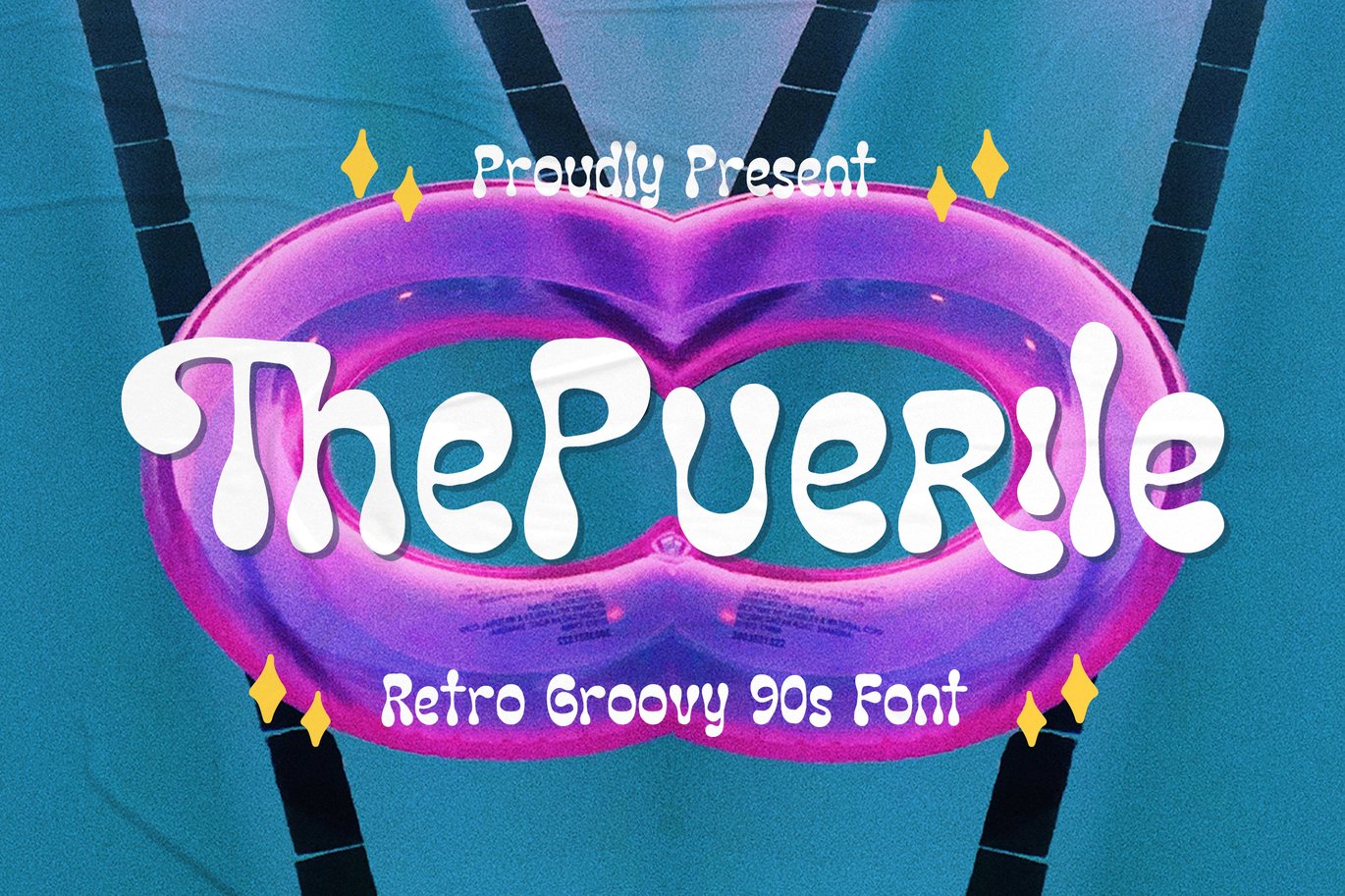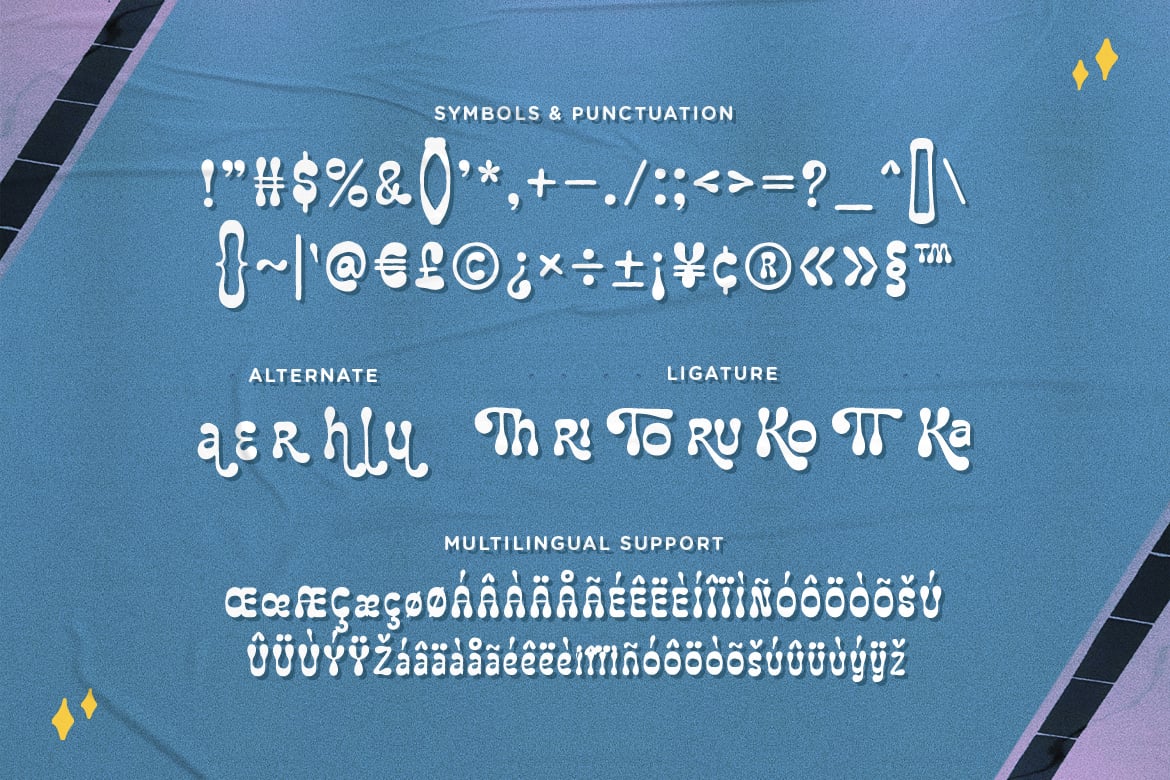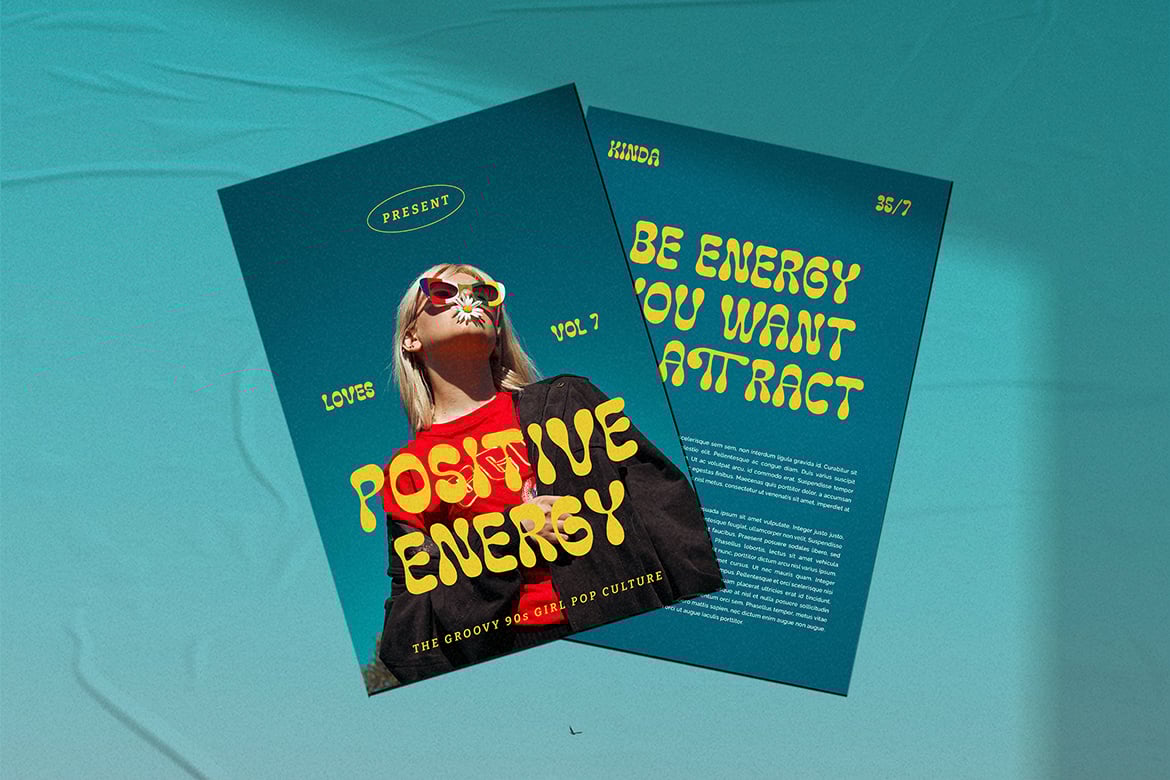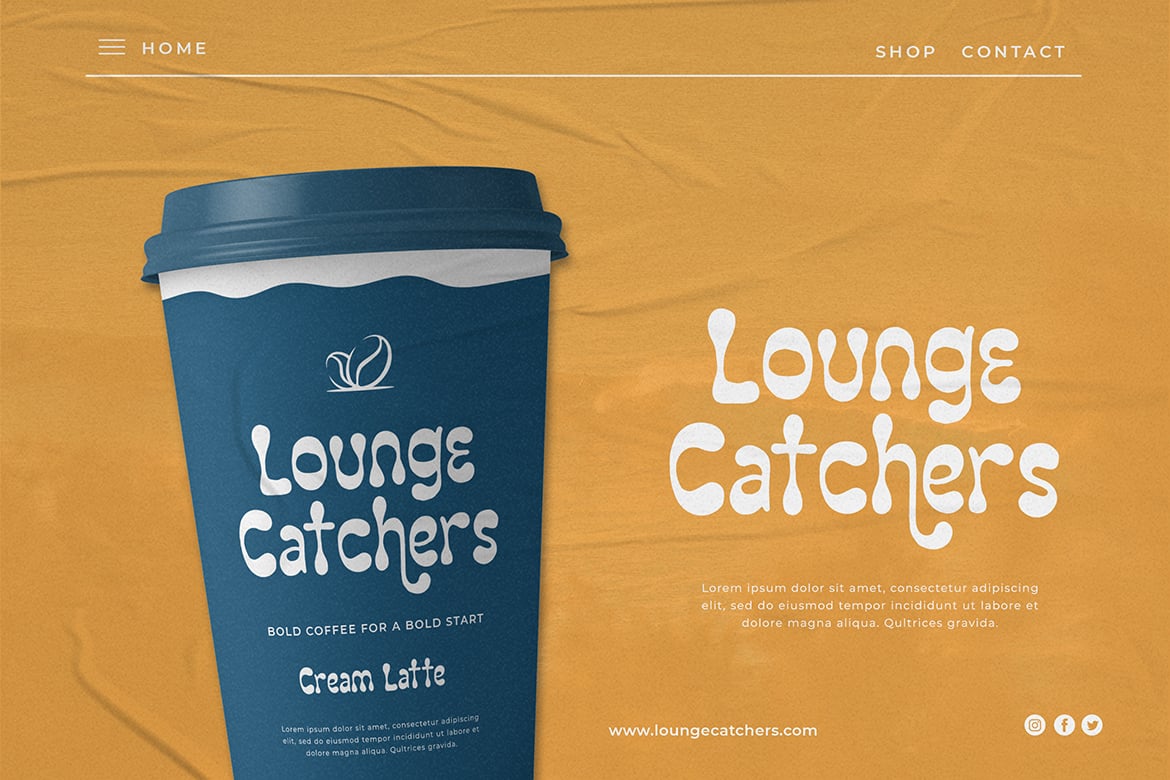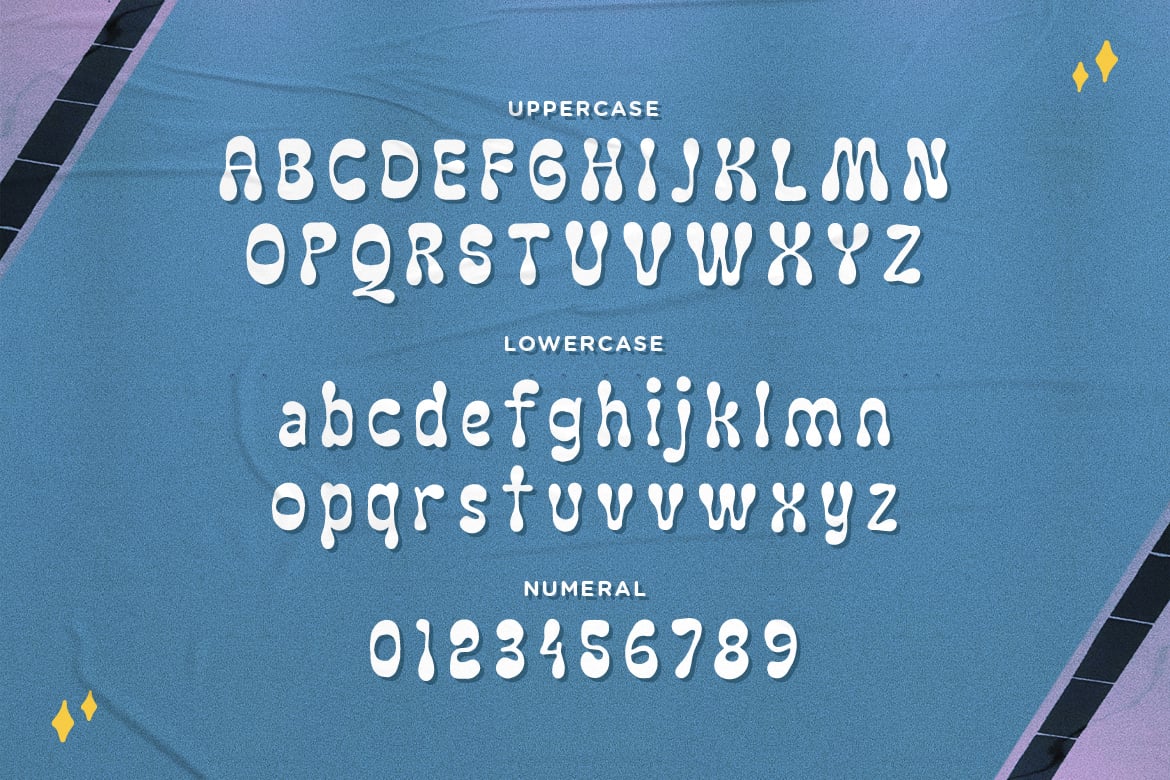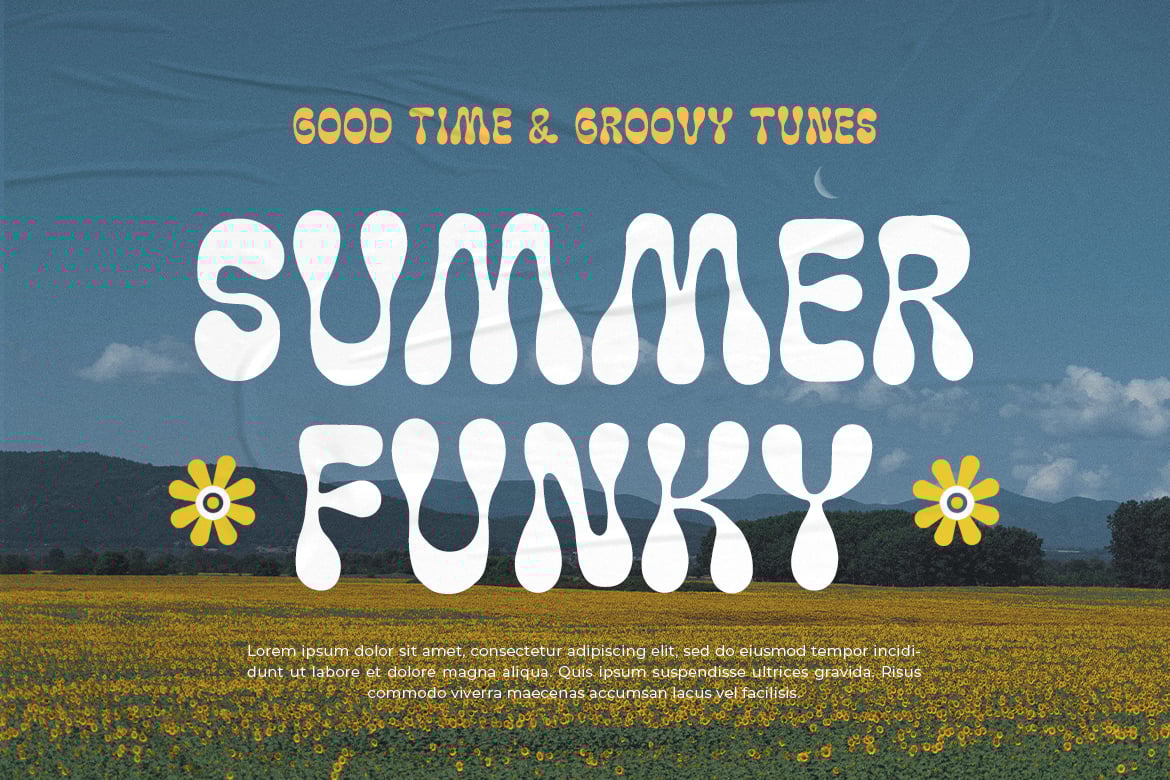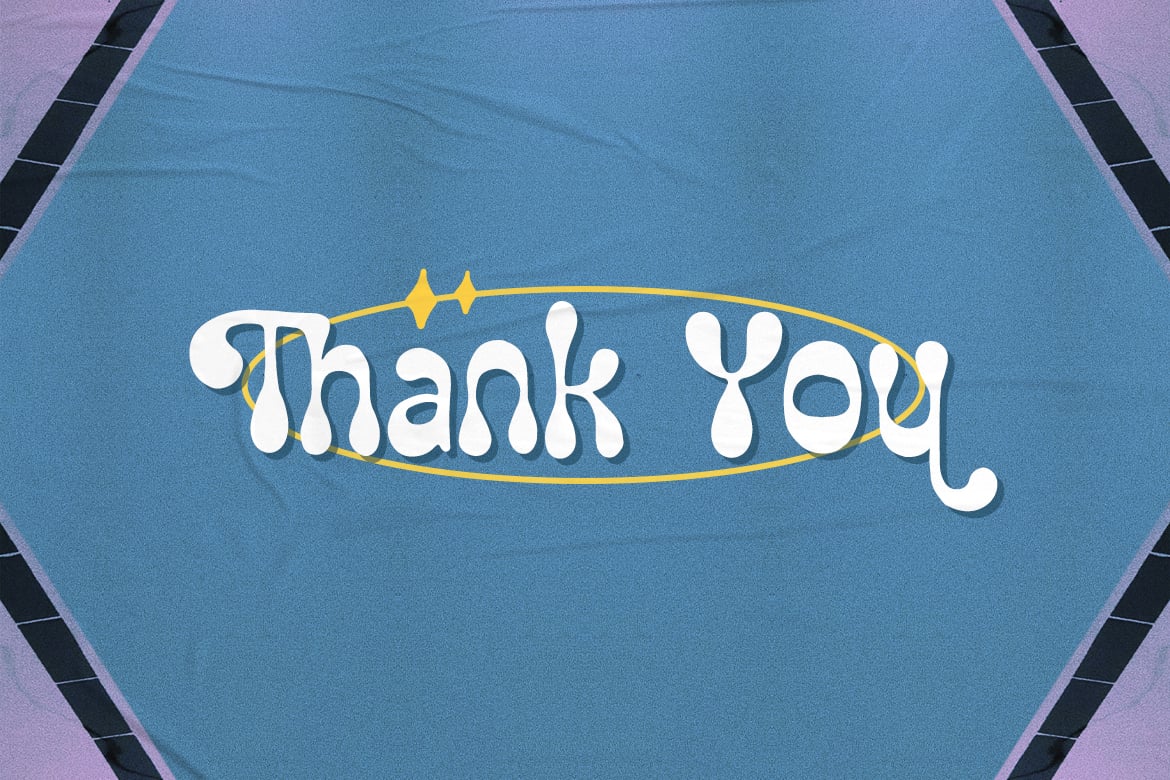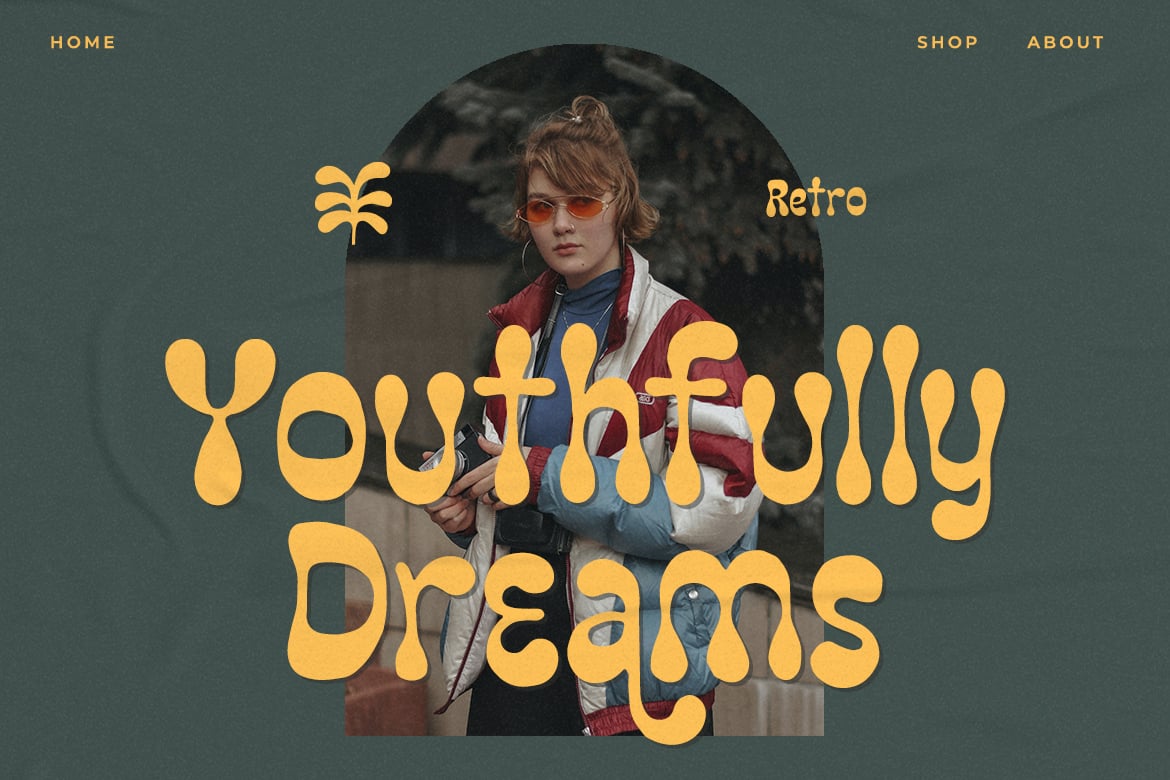
The Puerile – Retro Groovy 90s Font
Introducing, The Puerile. A retro groovy font which will bring you back to 90s feel.
The Puerile feels playfully nostalgic and delivers an incredible vintage aesthetic. Use this display font to add that special retro touch to any design idea you can think of!